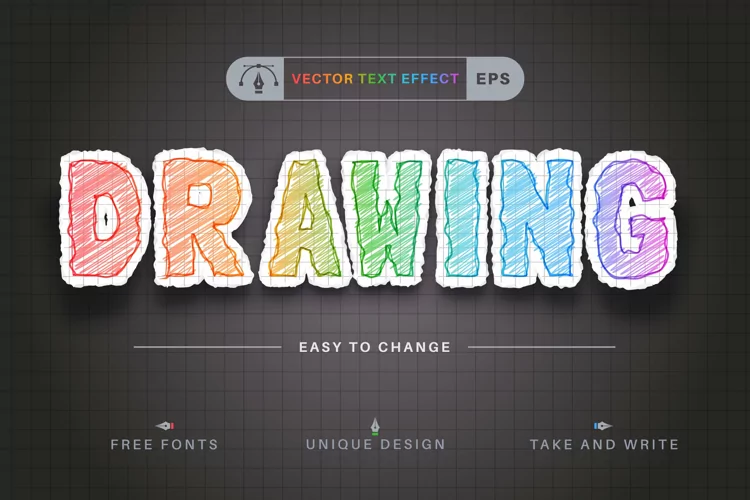
School Sketch is a playful cartoon font for kids.
Cute and adorable font with smooth sketched curves.
Its perfect for children books, greeting cards, toys, posters, baby clothing and more.